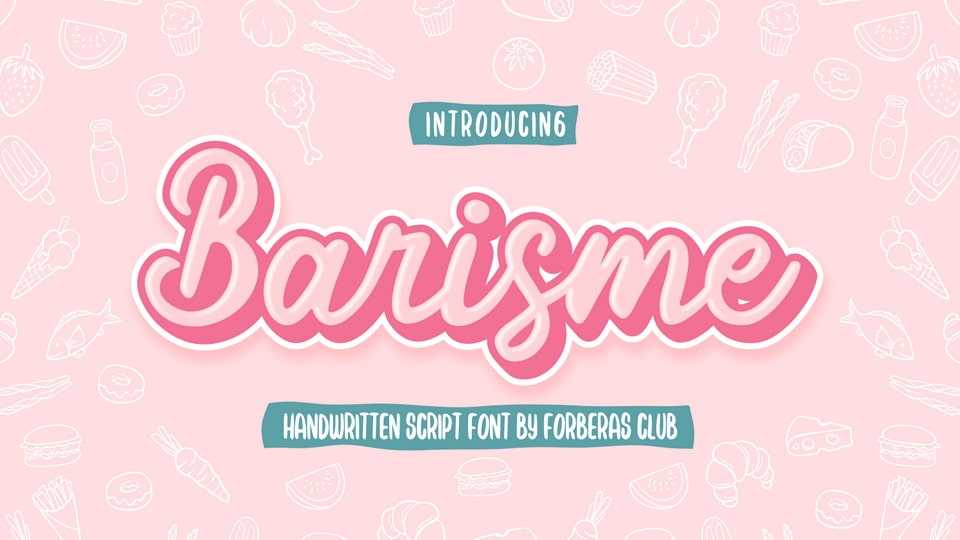
Download Barsime font, a sweet and delicate handwritten typeface. Dainty and joyful, this font will be ideal for writing wedding invitations, cards or any other design that may need a romantic, personalized touch!